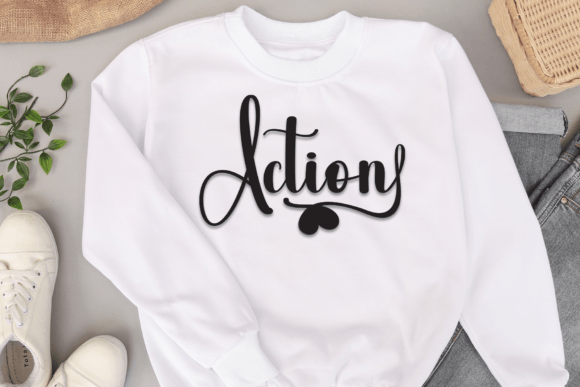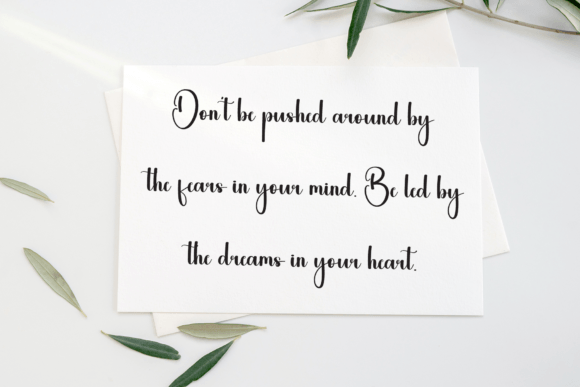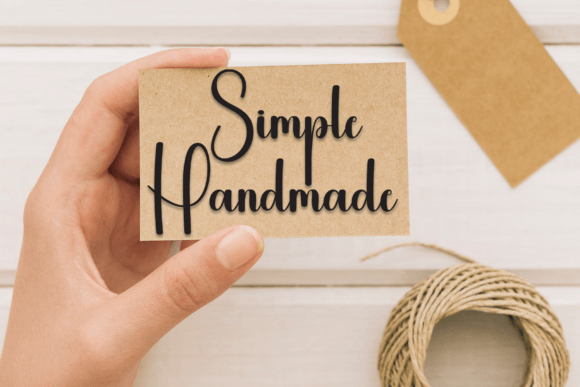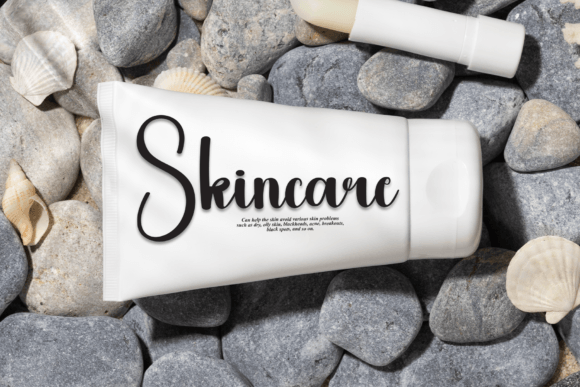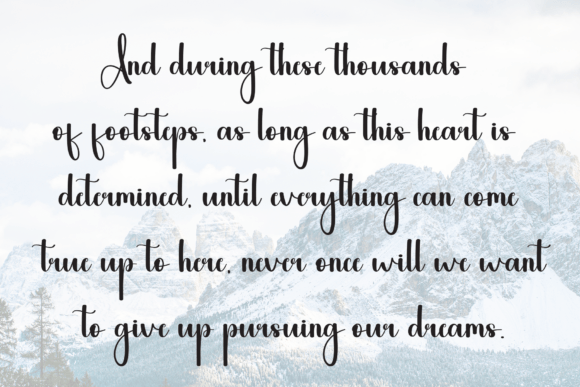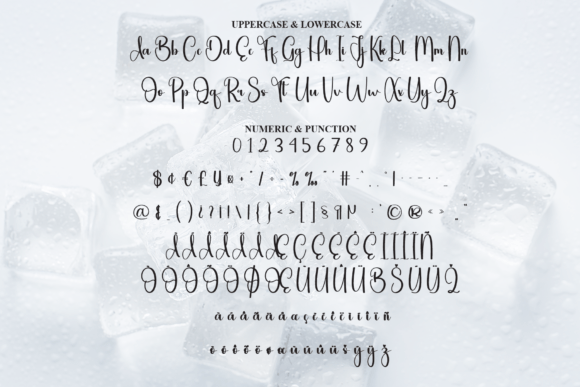
Discover the Charming Frostice Font: A Sweet Addition to Your Design Palette
Have you ever been in the middle of a design project, pouring your heart and soul into creating something special, only to realize that it’s missing that one crucial element – the perfect font? I recall a particularly frustrating experience while working on a wedding invitation project. My client wanted a font that was both elegant and playful, but I just couldn’t seem to find the right fit. That’s when I stumbled upon the enchanting Frostice Font, and it completely transformed my design.
A Personal Review: What I Love About Frostice Font
The Frostice Font has quickly become one of my go-to fonts for a variety of design projects. Here’s what I love about it:
- ✨ Sweet and Friendly Character: Frostice Font has a unique, charming aesthetic that’s perfect for creating designs that feel warm and inviting.
- ✅ Versatility: This font is incredibly versatile and can be used for a wide range of projects, from wedding invitations and whimsical cards to branding and packaging design.
- 💕 Emotional Connection: The Frostice Font has a way of evoking emotions and creating a connection with the reader. It’s perfect for designs that require a personal touch.
While the Frostice Font is an amazing addition to any design project, there are a few quirks to be aware of:
- 🤔 Limited Use in Body Text: While the Frostice Font is perfect for headings and titles, it may not be the best choice for body text. Its unique character and charm may get lost in longer blocks of text.
- ⚠️ Kerning Issues: As with any font, there may be some kerning issues, especially when using certain character combinations. Be sure to adjust the kerning to ensure the best results.
The Frostice Font was inspired by the whimsical and romantic feel of vintage wedding invitations. The designer wanted to create a font that captured the essence of love and warmth, while also being elegant and sophisticated. The result is a font that’s both unique and versatile, perfect for a wide range of design projects.
| What type of projects is the Frostice Font best suited for? | The Frostice Font is perfect for designs that require a sweet and friendly character, such as wedding invitations, whimsical cards, and branding projects. |
| Is the Frostice Font available in different weights or styles? | Currently, the Frostice Font is available in a single weight. However, the designer may release additional weights or styles in the future. |